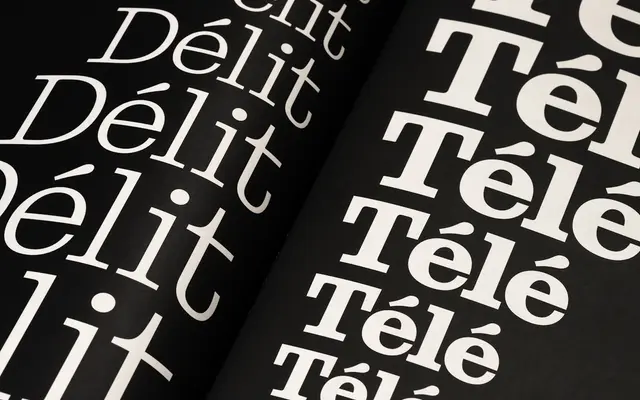
Stringer
A bracketed slab-serif revived from Miller & Richard's Ionic No. 3 by Emily Klaebe, adapted from 1926 printed specimens for contemporary typesetting.
Drawing on 12-point printed specimens from Miller & Richard's 1926 type catalogue as the primary source, the design preserves the wide proportions, large x-height, and gently curved bracketed serifs that made the Ionic style a newspaper standard. Subtle details from the printing process, including slightly sloped serif endings and inktraps in the joins, were treated as intentional and carried through the revival. Five weights from Thin to Bold are available individually or as a family package.
A bracketed slab-serif explicitly revived from Ionic No. 3 by Miller & Richard, a style developed for newspaper legibility. The Ionic subtype is characterised by its large x-height, wide proportions, and sturdy bracketed serifs.